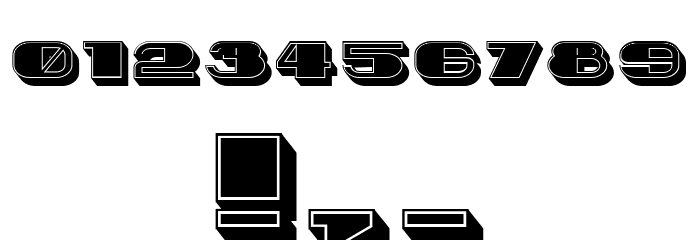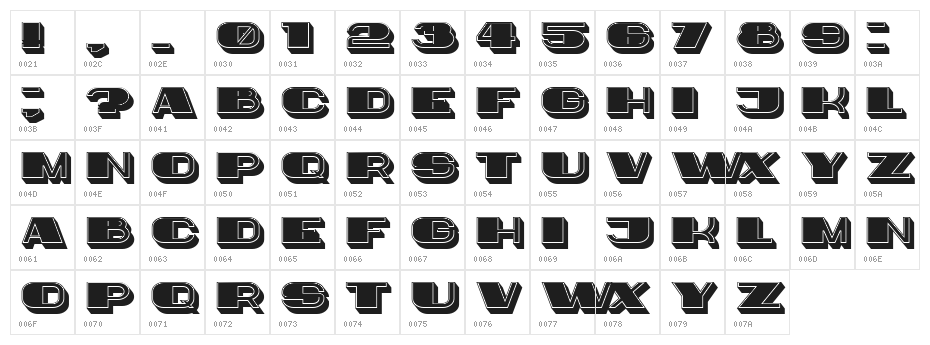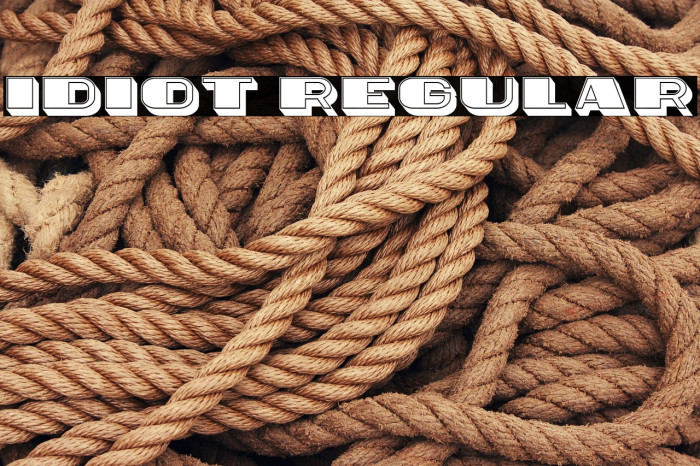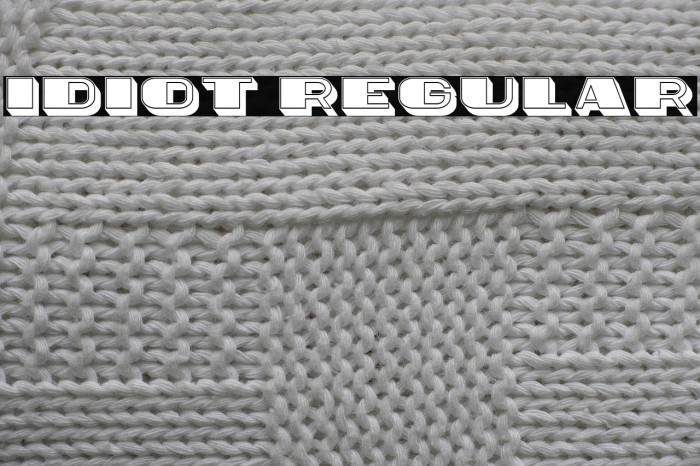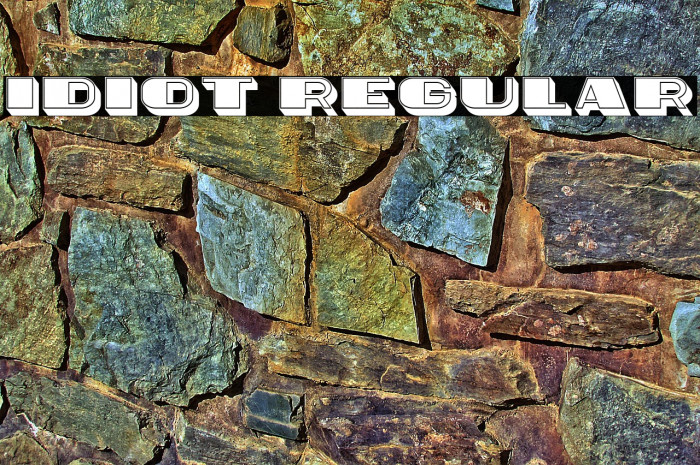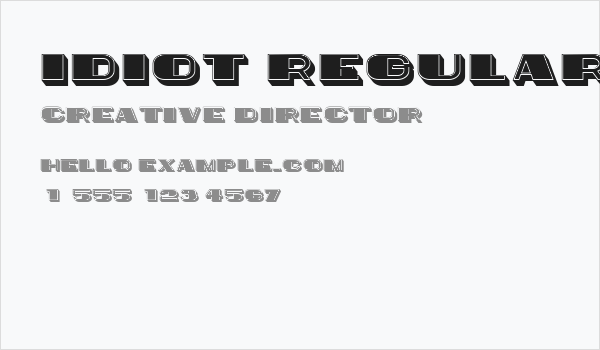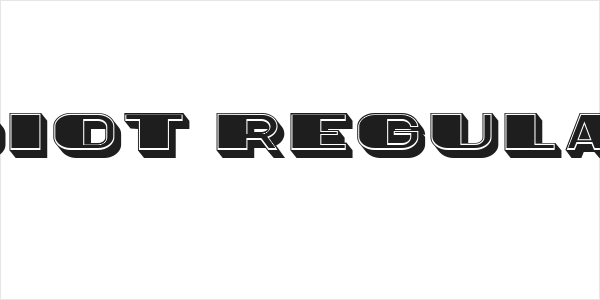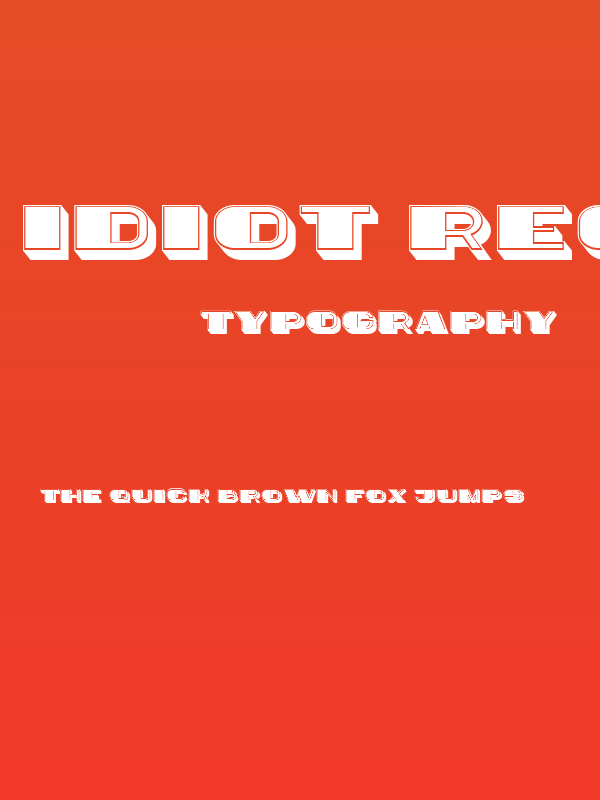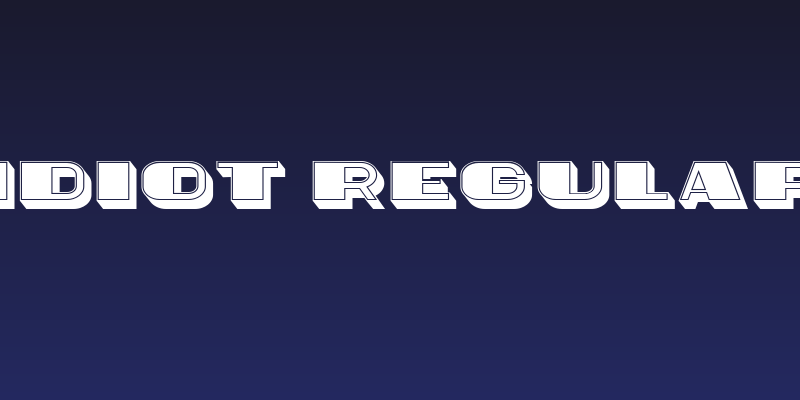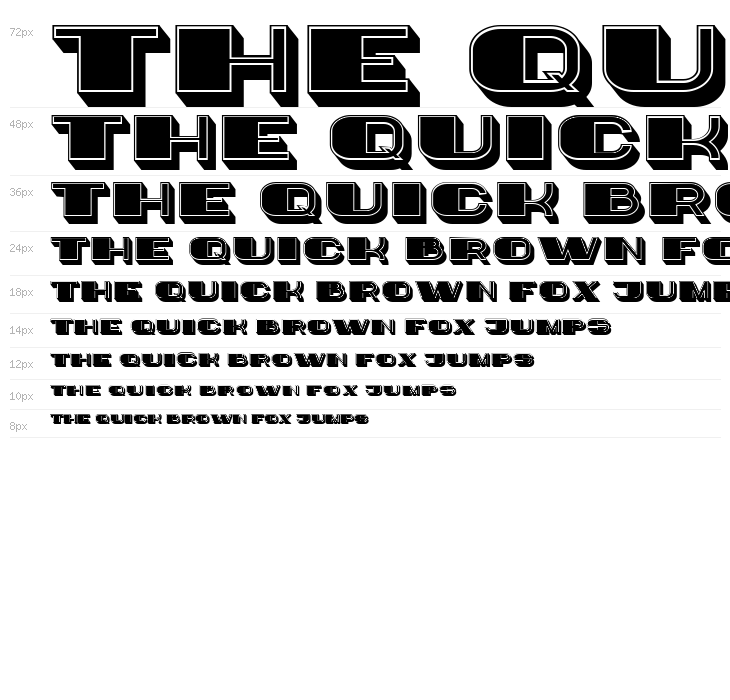
Idiot Regular Font
Idiot Regular Description
This font features a bold, three-dimensional style with a strong presence. The characters have a blocky, geometric design with a shadow effect that gives them depth and a sense of solidity. The uppercase letters are particularly striking, with sharp angles and clean lines that create a modern, industrial feel. The numbers and special characters maintain this aesthetic, ensuring consistency across all glyphs. This font is ideal for making a bold statement, with its unique style drawing attention and adding a dynamic element to any design.